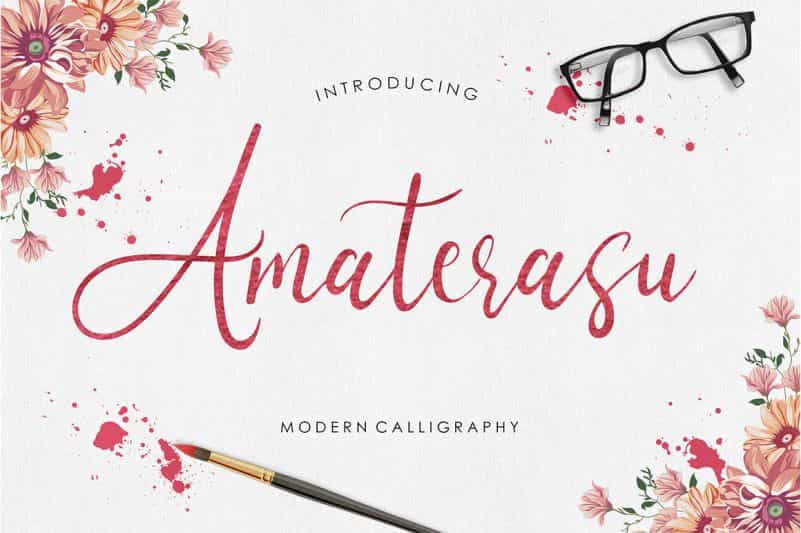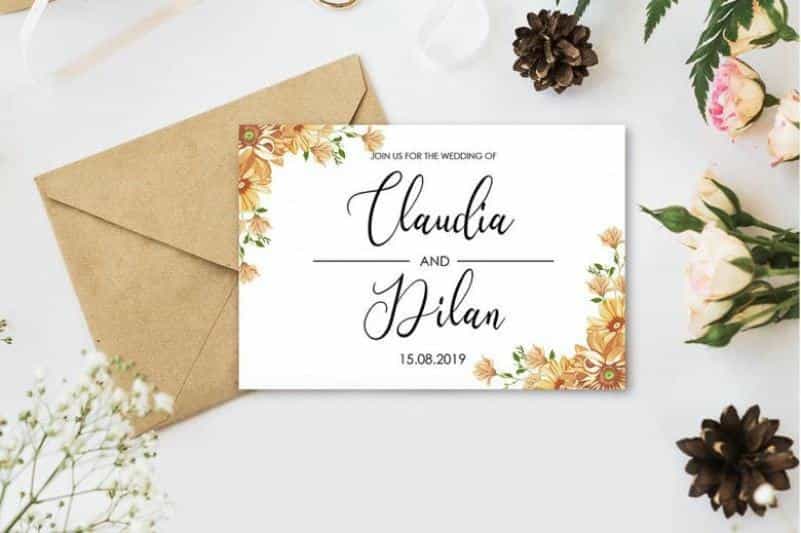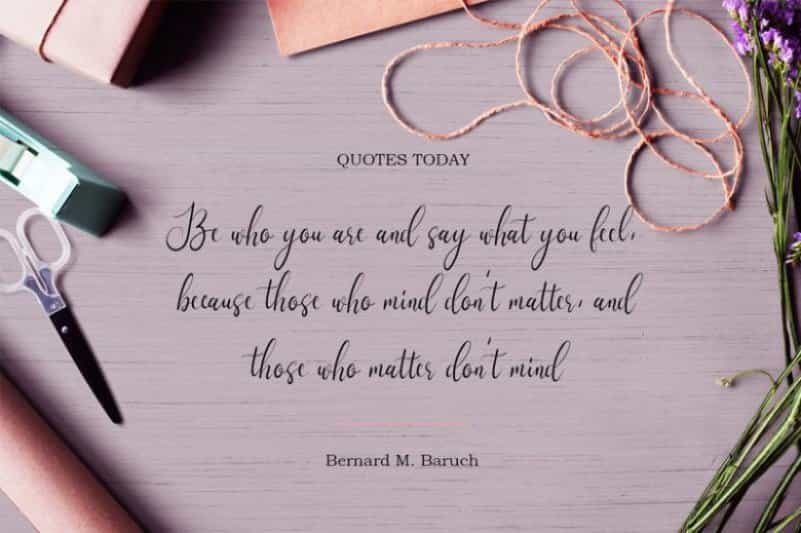
Amaterasu Font – A new calligraphy script font. this font is perfect for your new project. It is designed and distributed by lyanatha. Amaterasu Calligraphy Font is a great calligraphy font with its own personality. It has the graceful movements and is suitable for giving some elegance to your designs. Perfect for greeting cards, branding materials, business cards, quotes, posters and other design projects!